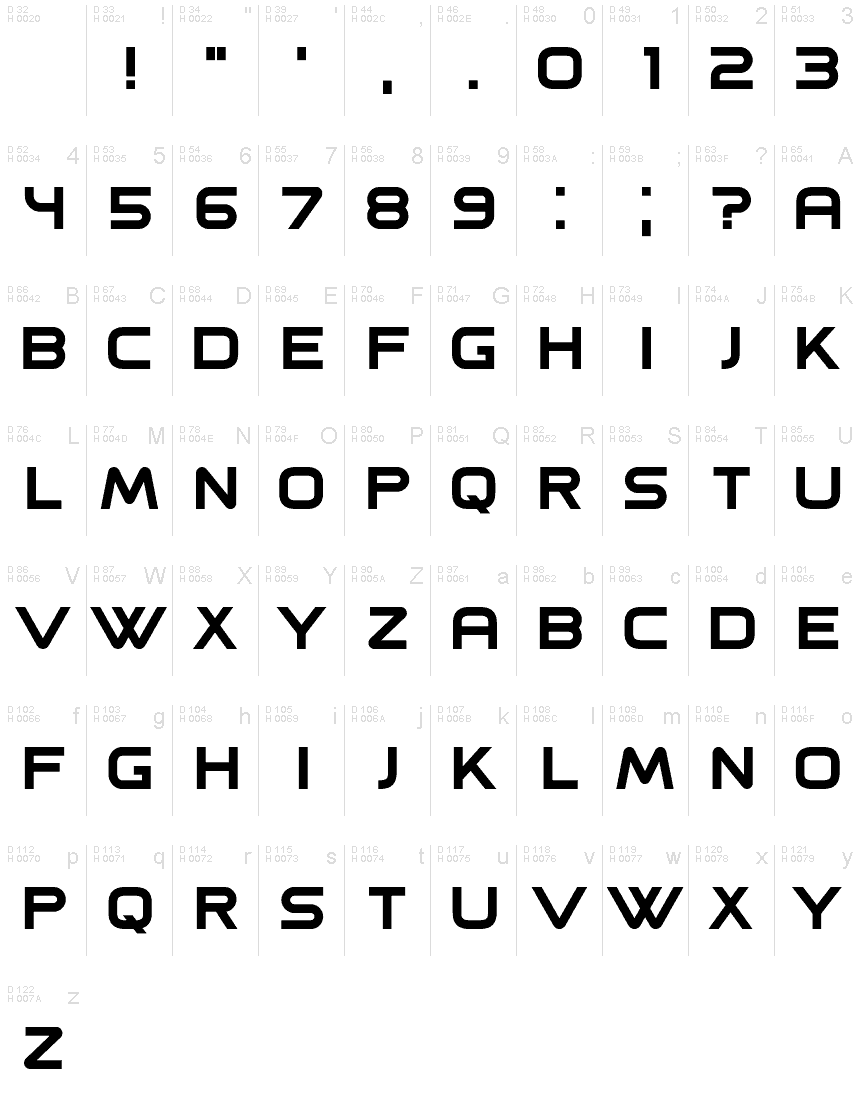
Boeing Regular
Boeing font designed by Vladimir Nikolic is an expanded sans serif font inspired by the logo of the famous aircraft manufacturer, Boeing. At first sight, one could easily detect the modern and geometric characteristics that underline professionalism and authority. This free modern display font features a clean design with smooth curves and lines that instantly give any brand all its priceless qualities.